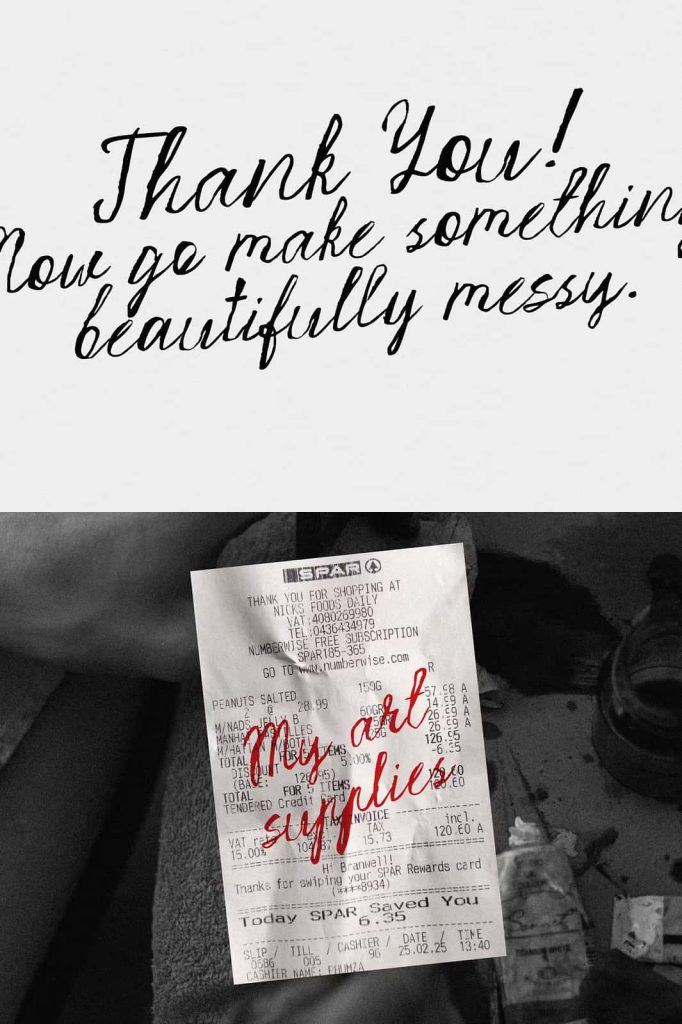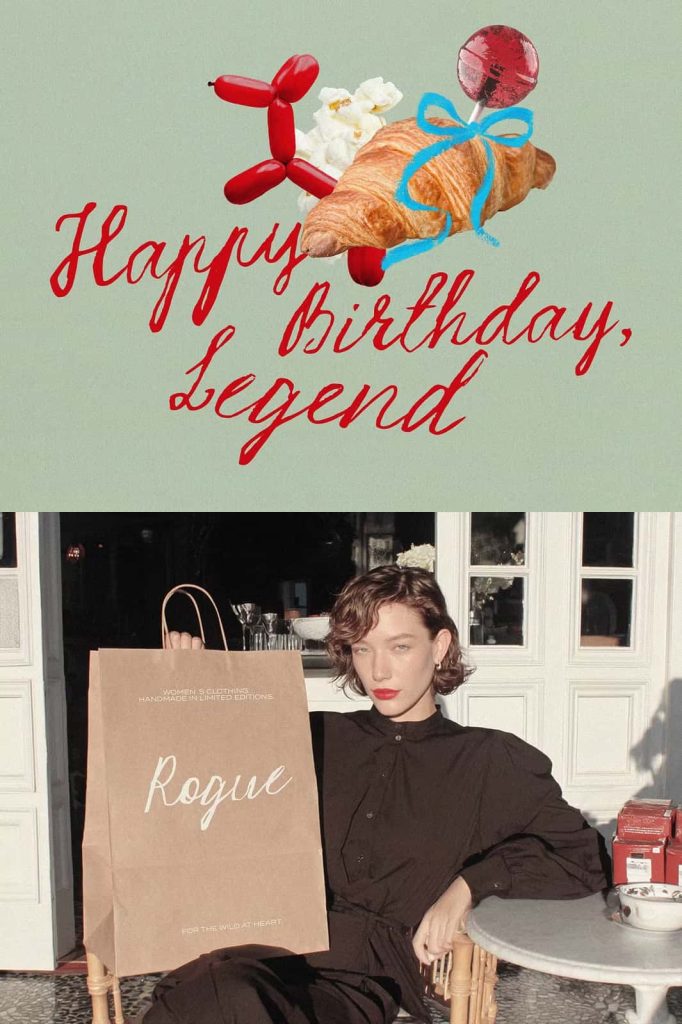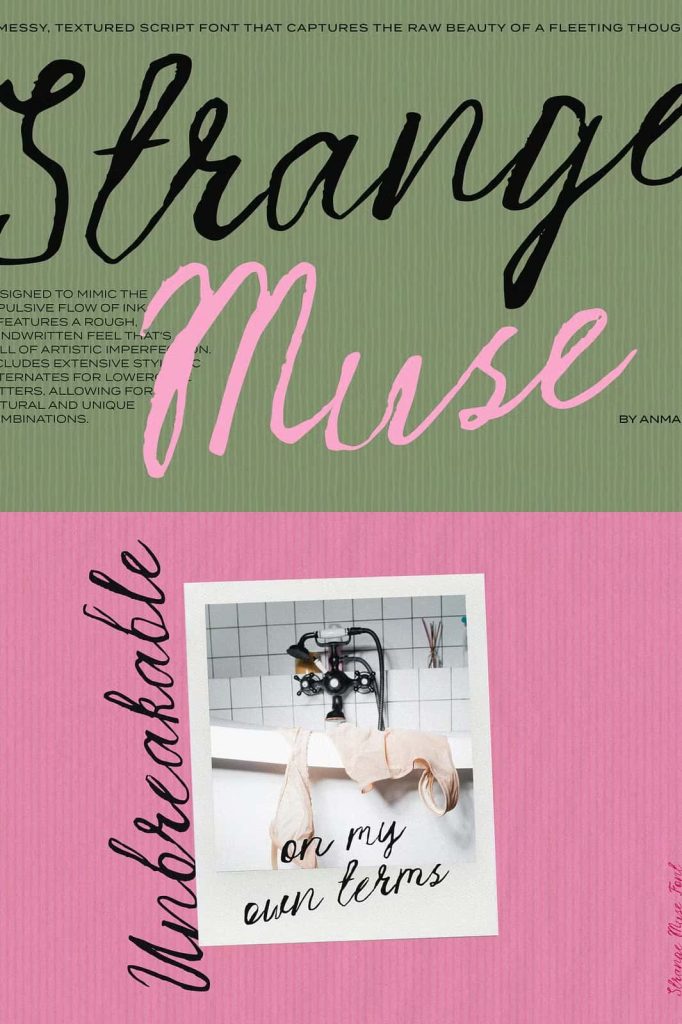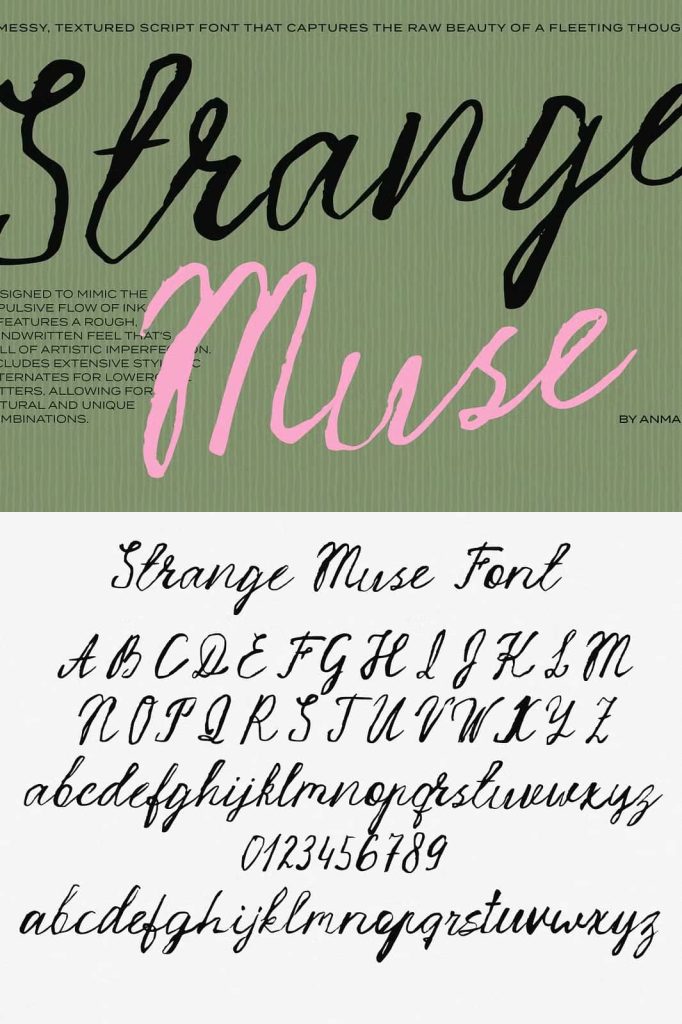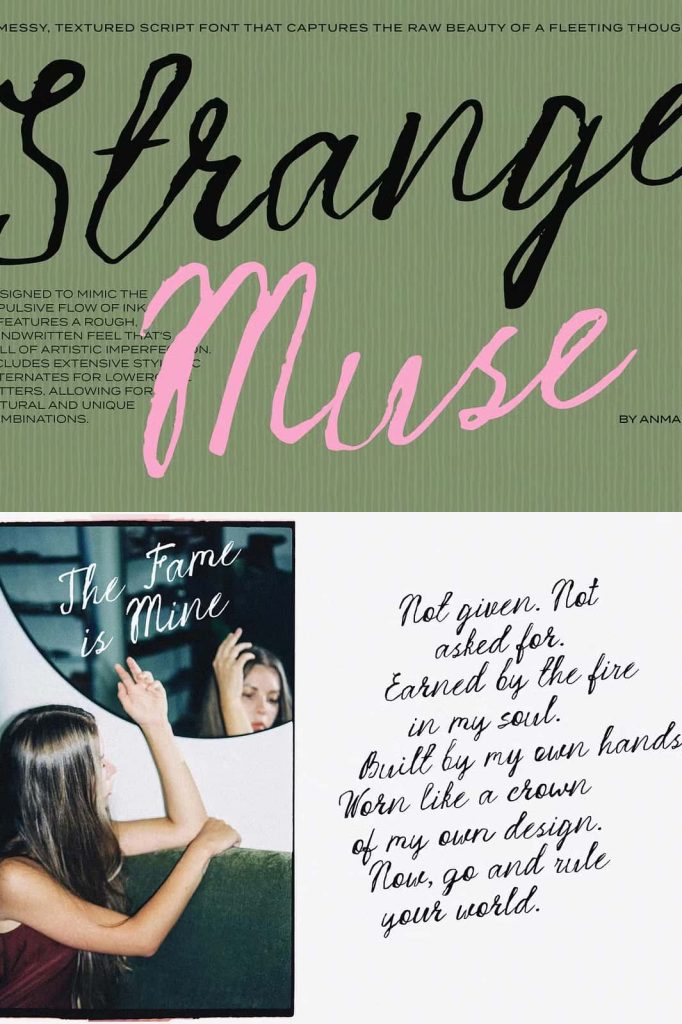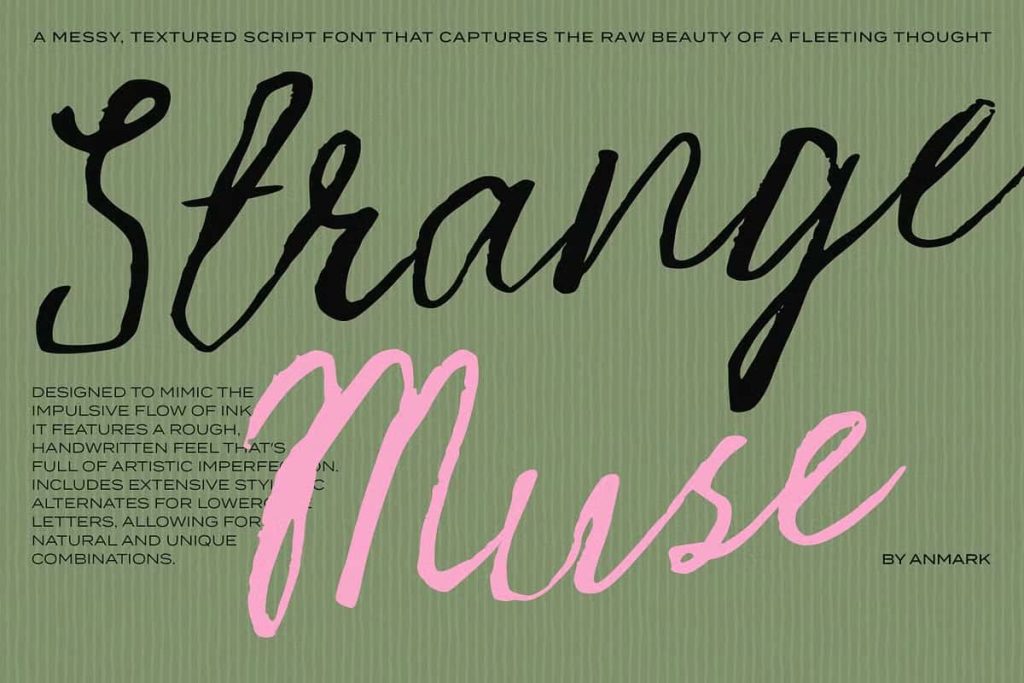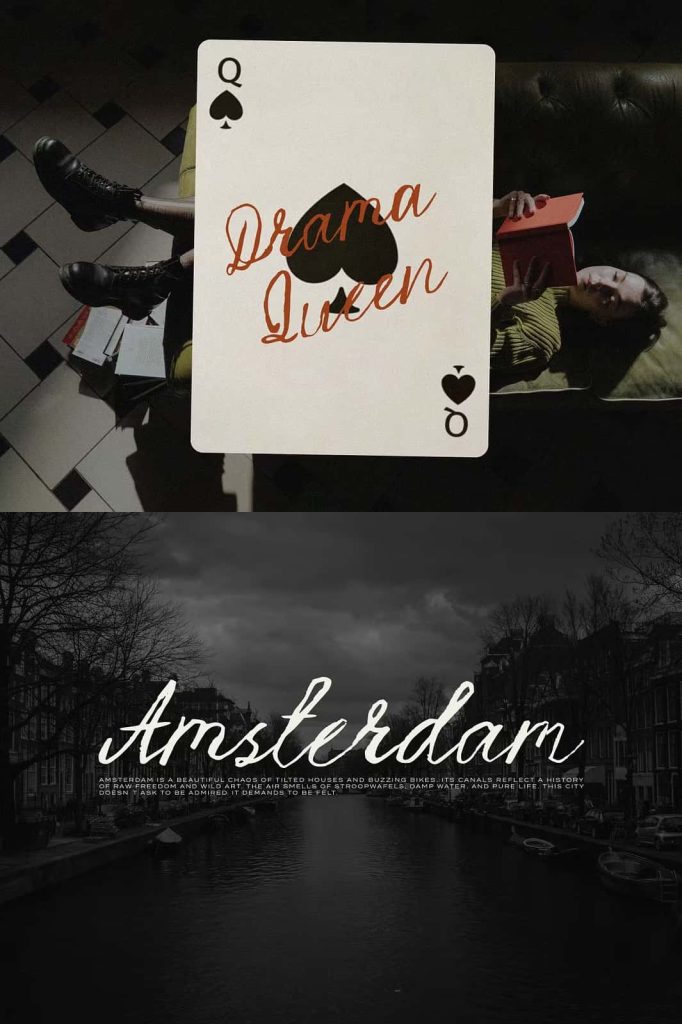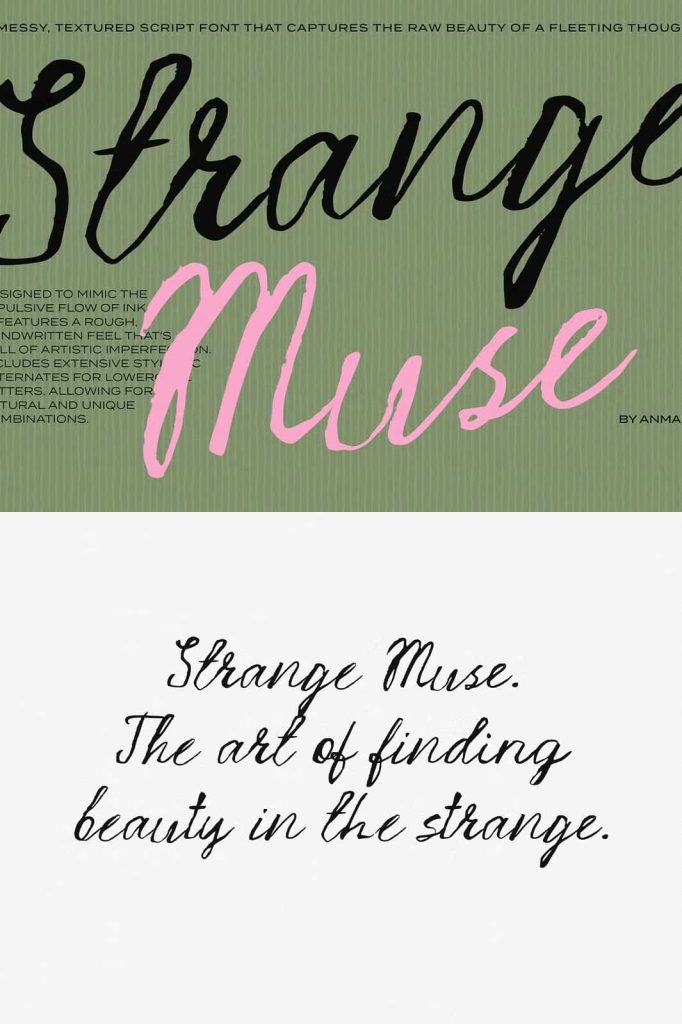
Strange Muse Rough Script Font
Strange Muse is a bold and expressive rough script font that captures the raw energy of spontaneous handwriting. Designed to feel messy, inky, and unapologetically imperfect, this typeface transforms ordinary text into a deeply human and emotional visual experience. It embraces irregularity and texture, allowing designers to break free from rigid typography and explore a more organic and artistic direction.
This font does not aim for perfection. Instead, it celebrates the beauty of imperfection, making every letter feel alive and personal. Strange Muse gives your designs a sense of movement and authenticity, helping you communicate emotion with clarity and intensity.
Raw Handwritten Aesthetic
Strange Muse draws inspiration from natural handwriting created in moments of spontaneity. Its uneven strokes and textured lines replicate the look of ink flowing freely across paper. This raw quality gives the font a unique personality that stands out in a world of polished and uniform typefaces.
The irregular shapes create a sense of rhythm and unpredictability, making each word feel dynamic. Designers can use this font to add depth and character to their work, ensuring that their typography feels genuine and expressive.
Messy Texture with Artistic Impact
The inky and rough texture of Strange Muse plays a key role in its visual identity. Each letter carries subtle imperfections that enhance the overall aesthetic. These details create a handcrafted feel that cannot be replicated by clean digital fonts.
This textured style works especially well in artistic and creative projects. It allows designers to create compositions that feel bold and unconventional while still maintaining readability. The font adds visual interest without overwhelming the message.
Designed for Emotional Expression
Strange Muse excels in projects that require strong emotional impact. Its expressive nature makes it ideal for conveying feelings such as passion, intensity, and creativity. Whether you are designing artwork, quotes, or branding materials, this font helps you communicate more than just words—it conveys mood and personality.
Use it to create designs that resonate with audiences on a deeper level. Its human touch makes your message feel more relatable and engaging.
Perfect for Creative and Artistic Projects
This font adapts well to a variety of creative applications. It works beautifully in posters, album covers, social media graphics, and branding projects that aim to stand out. Its rough style makes it particularly effective for designs that embrace individuality and artistic freedom.
Designers can use Strange Muse to create bold headlines, expressive titles, or decorative elements that draw attention. Its unique appearance ensures that your work remains memorable and distinctive.
Break Away from Perfect Typography
Strange Muse challenges traditional design rules by embracing imperfection. It encourages designers to step outside conventional boundaries and experiment with more expressive typography. This approach opens up new creative possibilities and allows for more authentic design outcomes.
By using this font, you can create layouts that feel less mechanical and more organic. The result is a design that captures attention and communicates with a strong visual voice.
Versatile Across Print and Digital Media
Despite its raw appearance, Strange Muse performs well across both print and digital platforms. In print, it delivers rich texture and depth, making it ideal for posters, packaging, and artistic prints. In digital formats, it maintains clarity while preserving its expressive qualities, ensuring that your designs remain impactful on screens.
This versatility allows you to use the font consistently across different mediums, creating a cohesive visual identity for your projects.
Create Designs with Personality and Depth
Strange Muse gives you the tools to create typography that feels alive and meaningful. Its combination of messy strokes, inky texture, and expressive style helps you build designs that stand out and connect with audiences. It transforms simple text into a powerful visual element that enhances storytelling and creativity.
If you want to move beyond clean and predictable typography, Strange Muse offers a fresh and dynamic alternative. It empowers you to create designs that feel authentic, emotional, and full of character, making every project more engaging and memorable.